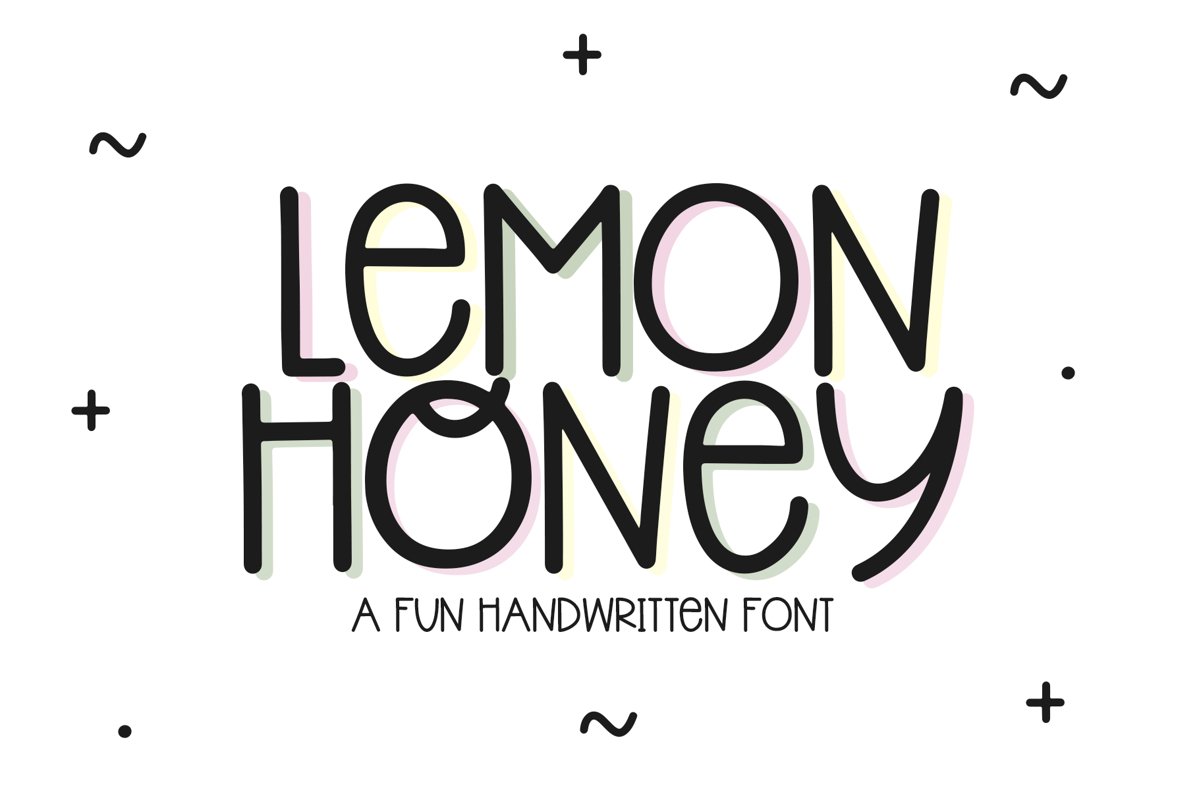
Lemon Honey is a fun and quirky handwritten font!
This font is perfect for quotes, shirt designs, websites, branding, children's designs, svg designs, blogs, logos, invitations and more!